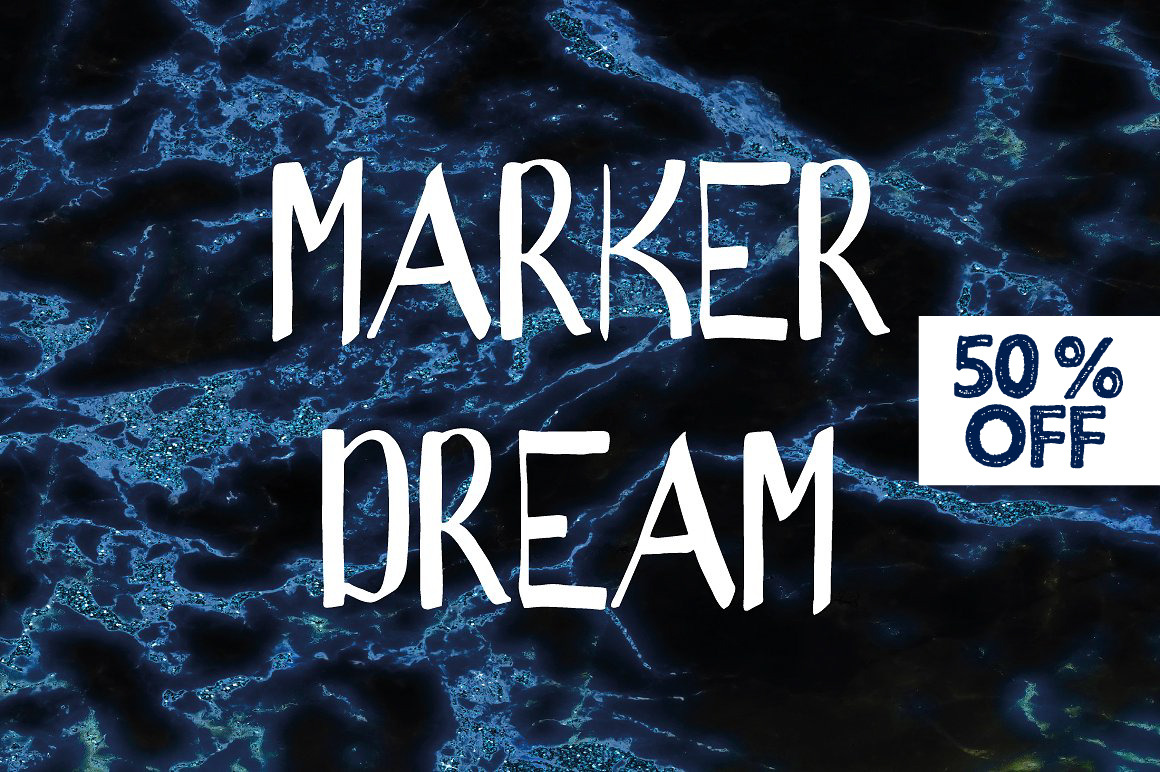
Marker Dream Font - is a fun font when you need text to look like it was quickly written with a sharpie.Kerning and spacing is custom set to show slight imperfections when writing by hand with a marker. Containing upper & lowercase characters, full set of punctuation and numerals.